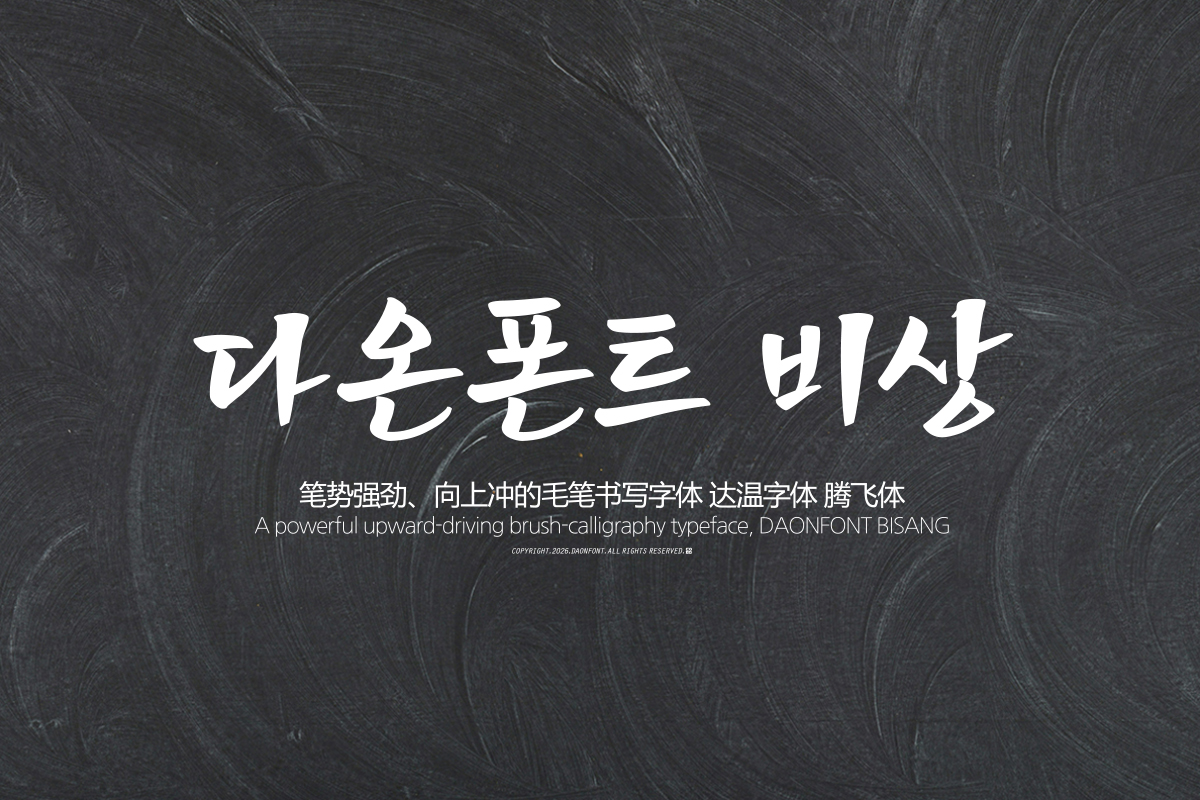
DAON BISANG(B)
DaonFont 'BISANG' is a calligraphy-style Korean typeface created for copy design. Overall, the stroke thickness varies distinctly, and the beginning and end of the characters finish as if extending rapidly, conveying a dynamic and powerful impression. 'Bisang' is a Korean typeface suitable for expressing both a strong message and an emotional atmosphere.